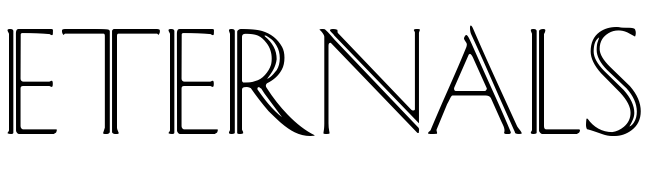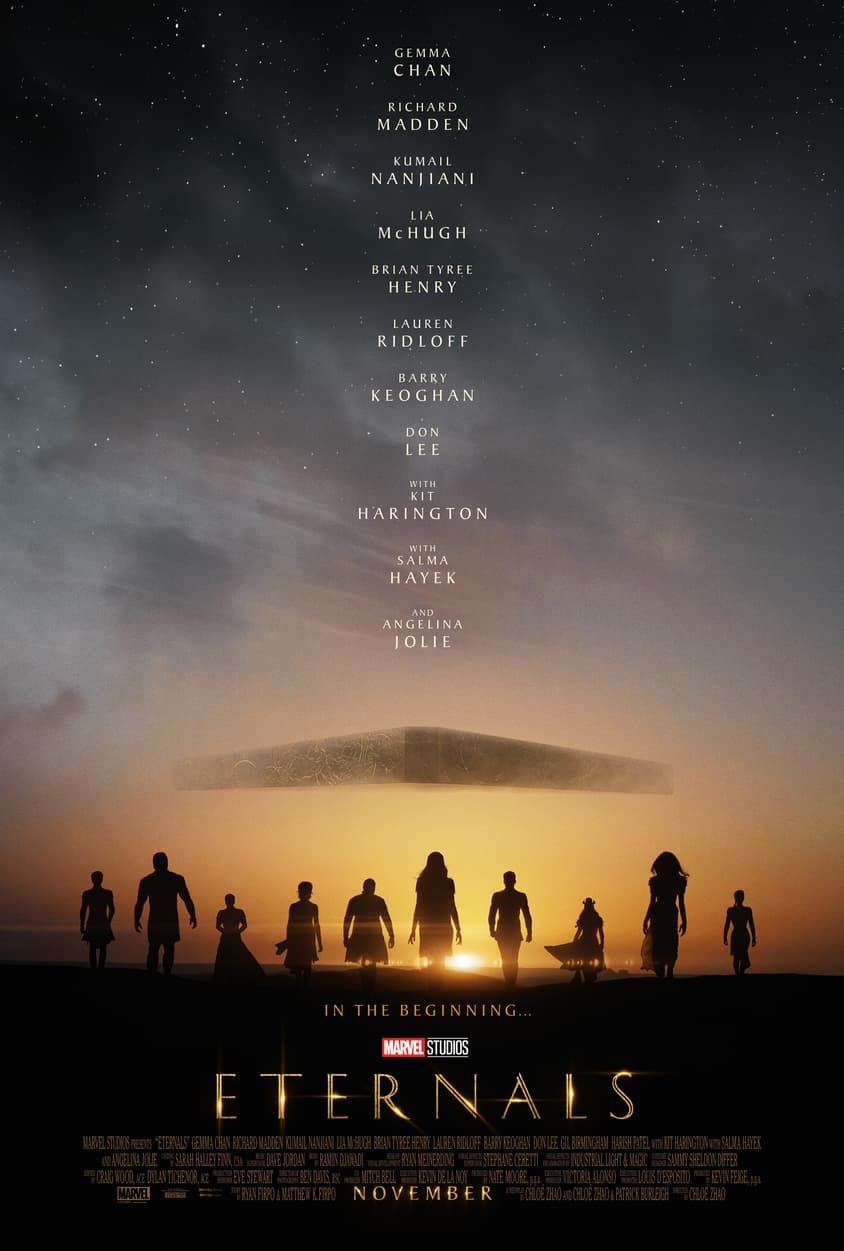
Eternals (Movie) Font
Fonts in UseEternals is a superhero film based on the Marvel Comics race of the same name. The film is part of the Marvel Cinematic Universe (MCU) and was released in 2021.
The lettering for "ETERNALS" looks similar to a free font called Caesar. The names of the cast members on the poster were written using a slightly modified version of the Baker Signet font.